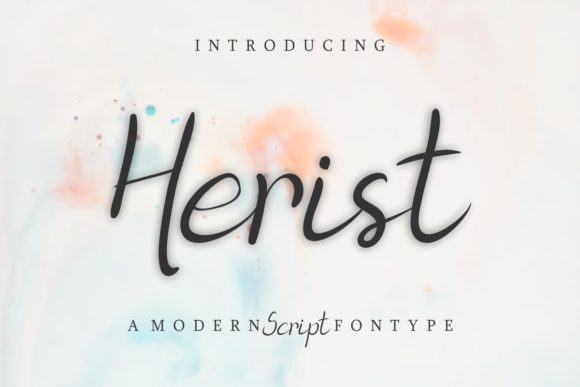
Herist Font
Introducing Herist Font – The Unparalleled Script Font That Will Ignite Your Creativity
Embark on a typographic journey like never before with Herist Font, the ultimate script font that captivates hearts and imaginations. Crafted by the visionary EdricStudio, Herist is a breathtaking masterpiece that embodies elegance, modernity, and boundless creativity. Prepare to be mesmerized by its captivating curves, graceful strokes, and alluring personality.
Herist Font: Where Art Meets Innovation
Unleash your inner artist with Herist Font, the game-changing script font that transforms your designs into masterpieces. Whether you're a seasoned designer or just starting, Herist empowers you to effortlessly create captivating visuals that leave a lasting impression. Its meticulously designed characters dance across the page, evoking a sense of sophistication and allure.
Express Yourself with Unparalleled Versatility
Herist Font transcends the boundaries of ordinary fonts, offering a remarkable range of applications that cater to your every creative need. From stunning logos and captivating headlines to eye-catching social media posts and enchanting invitations, Herist seamlessly adapts to your vision, adding an irresistible touch of sophistication wherever it goes. Let your imagination run wild as you witness Herist's transformative power, elevating your designs to new heights of excellence.
A Font That Speaks to the Soul
Herist Font is more than just a collection of characters; it's an artistic expression that speaks to your soul. Its enchanting curves and elegant lines evoke emotions and create a connection that transcends words. Whether you're crafting a heartfelt message, narrating a compelling story, or simply expressing your unique style, Herist becomes your trusted companion, amplifying your message with grace and impact.
Experience the Magic of Herist Font Today